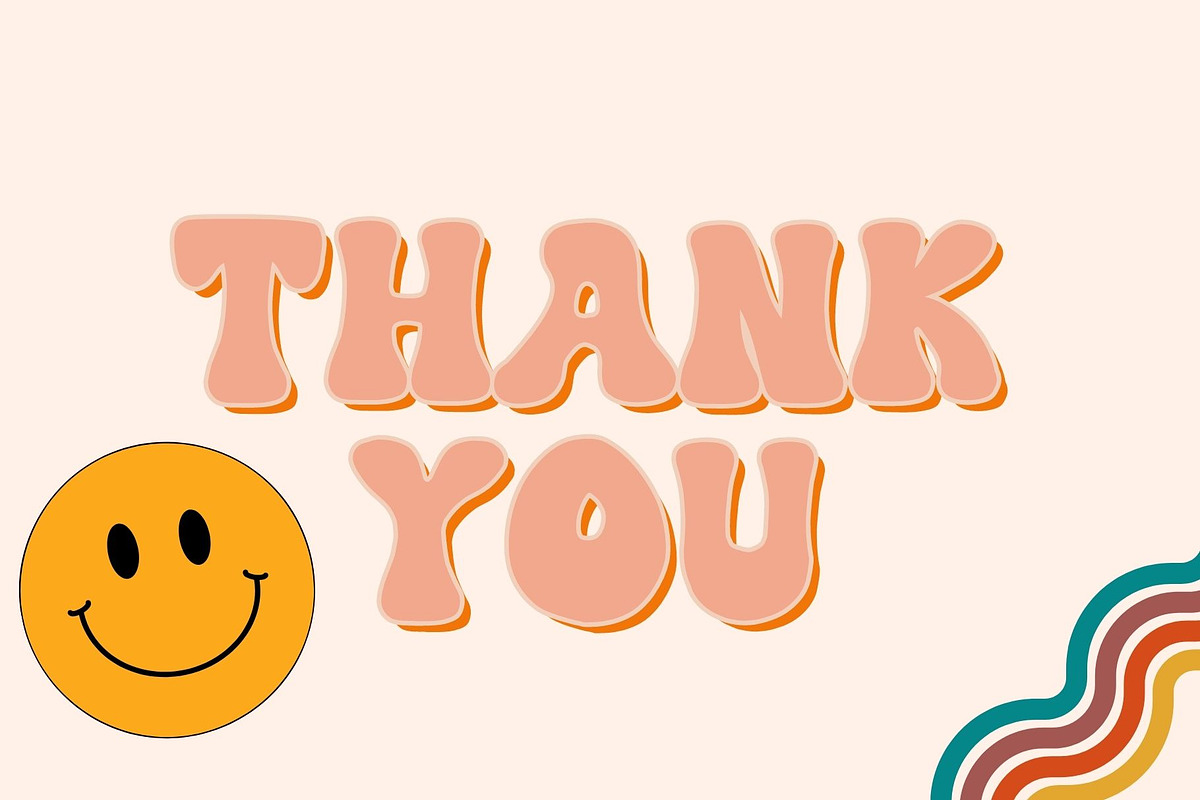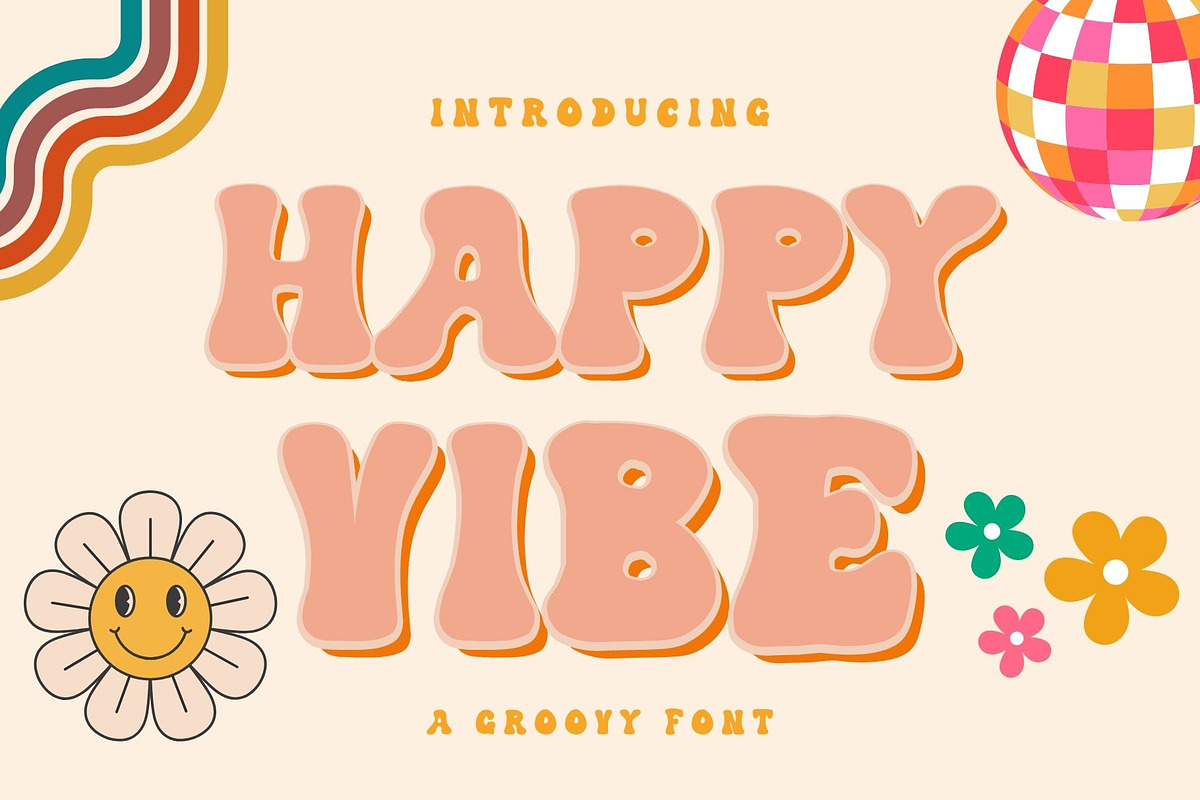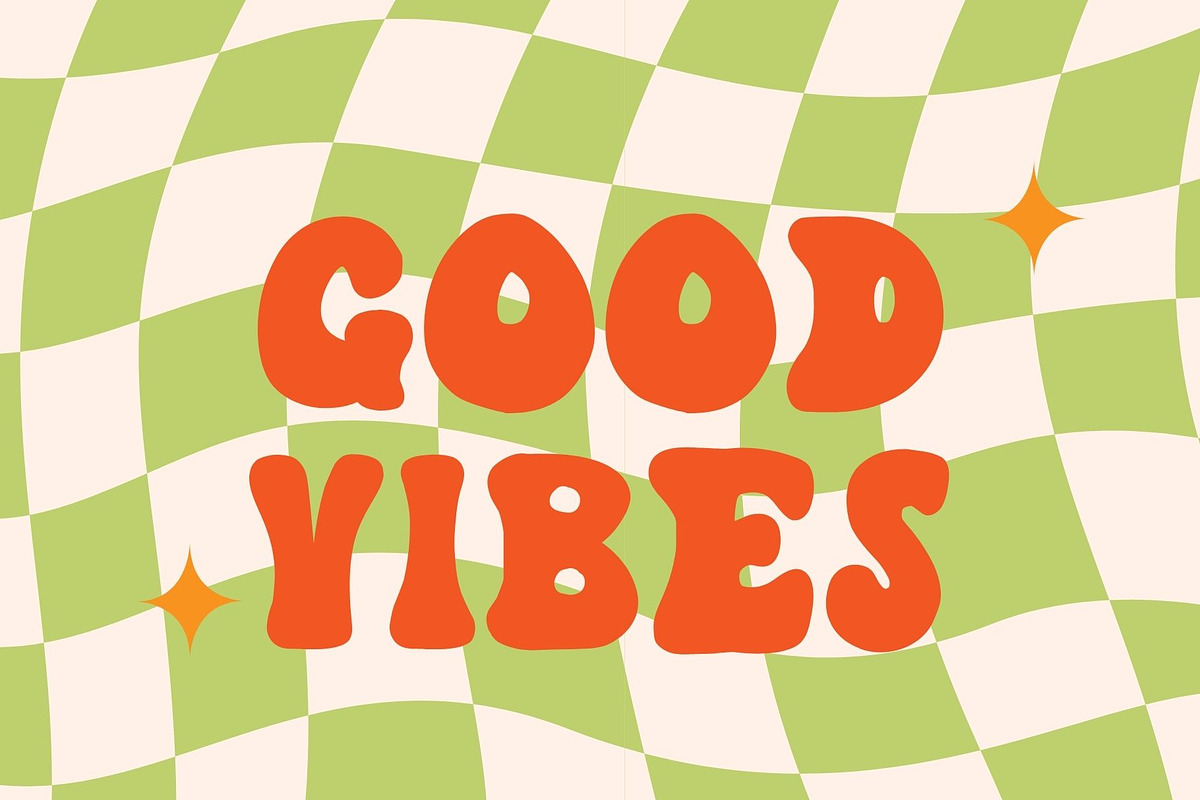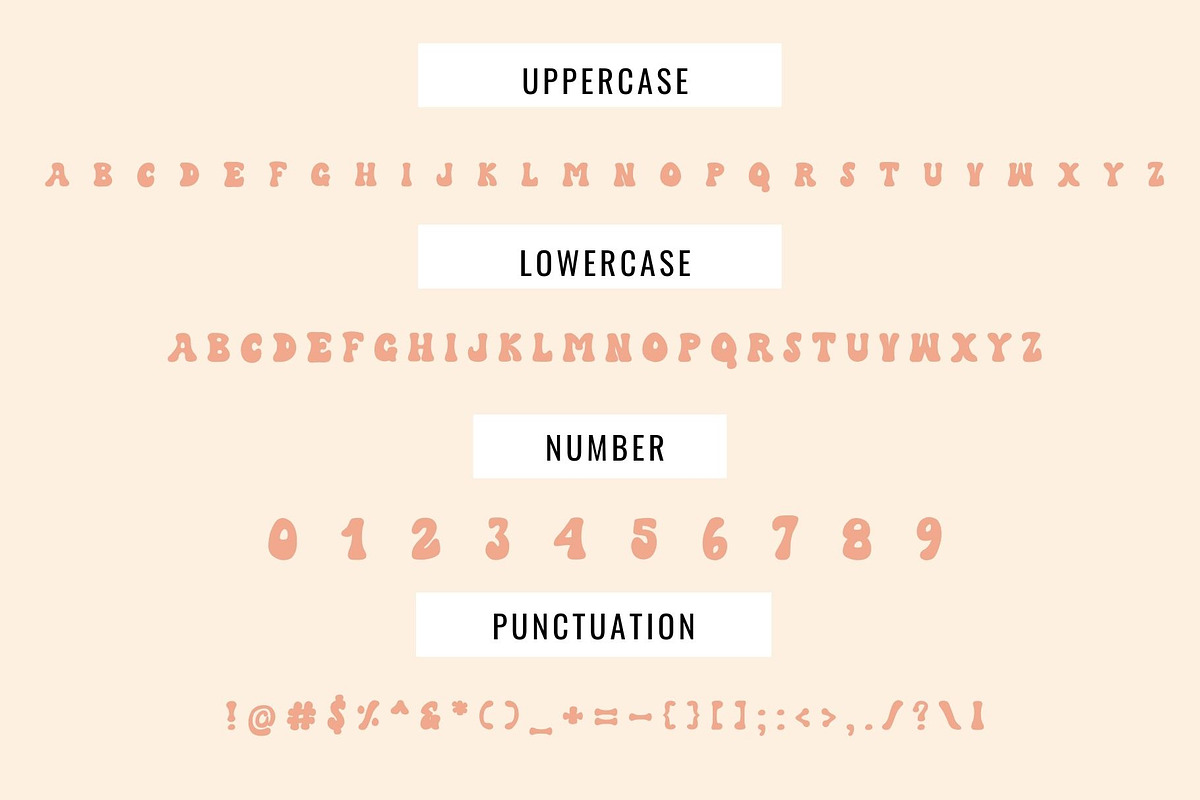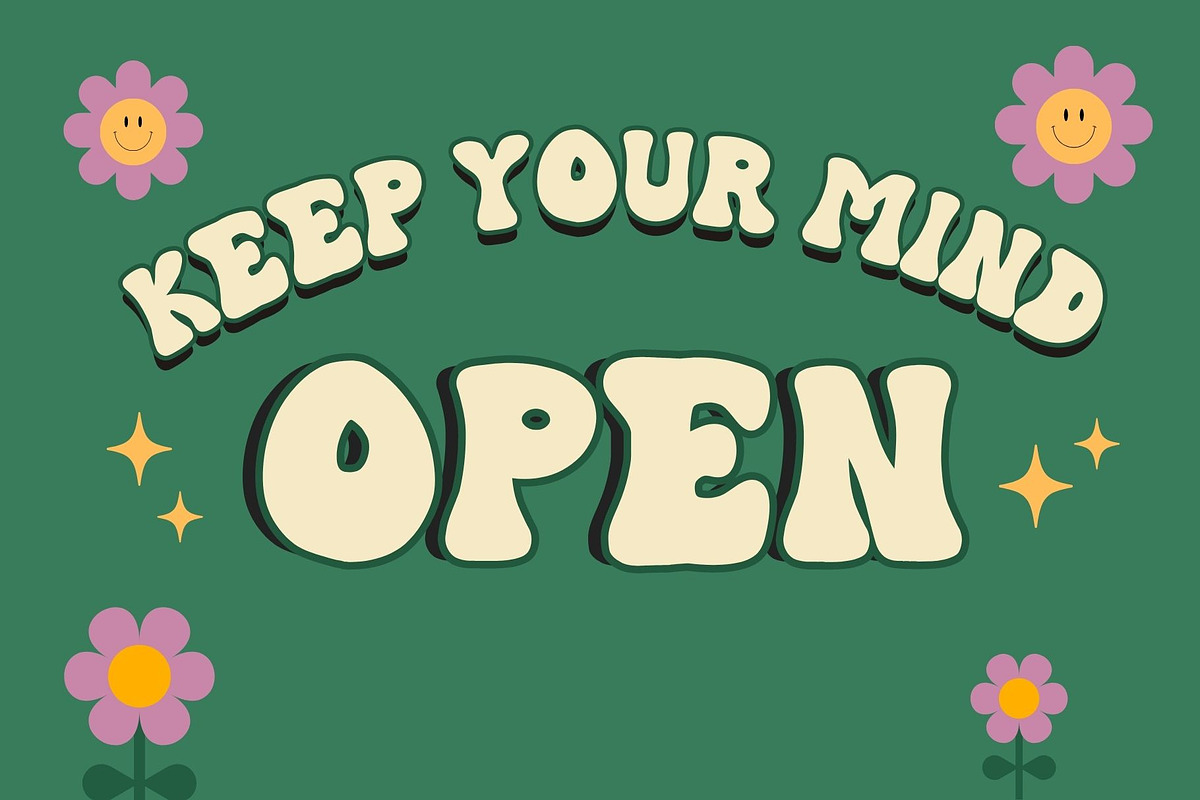
Happy vibe is a groovy decorative fo
Happy vibe is a cool retro groovy decorative font. The additional elements of blood dripping and bones-like letters make an ambiance of horror Invitations, postcards, posters, and headings for a Halloween event; this font can be used in every setting.